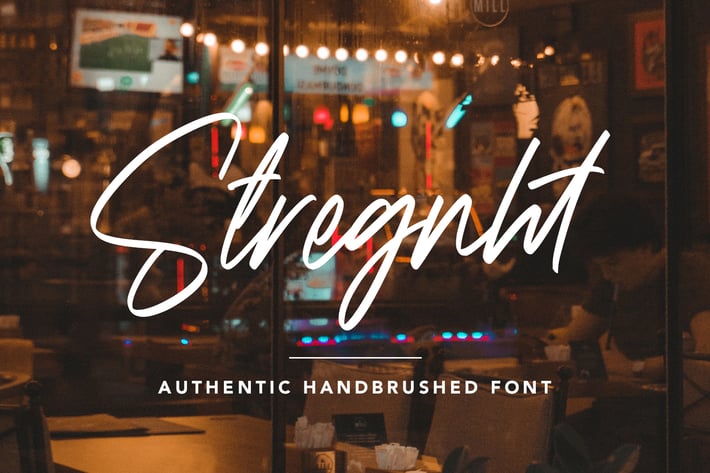
Strength - Authentic Handbrushed Font
aqrstudio
Strength - Authentic Handbrushed Font contains a lowercase, uppercase, symbol, and also supports multi-language. There’s a lot of ligature in this font. Baguette Font also comes with ligatures, stylistic alternates and many more.
this font suitable for fashion, branding, catalog and other design that you want.